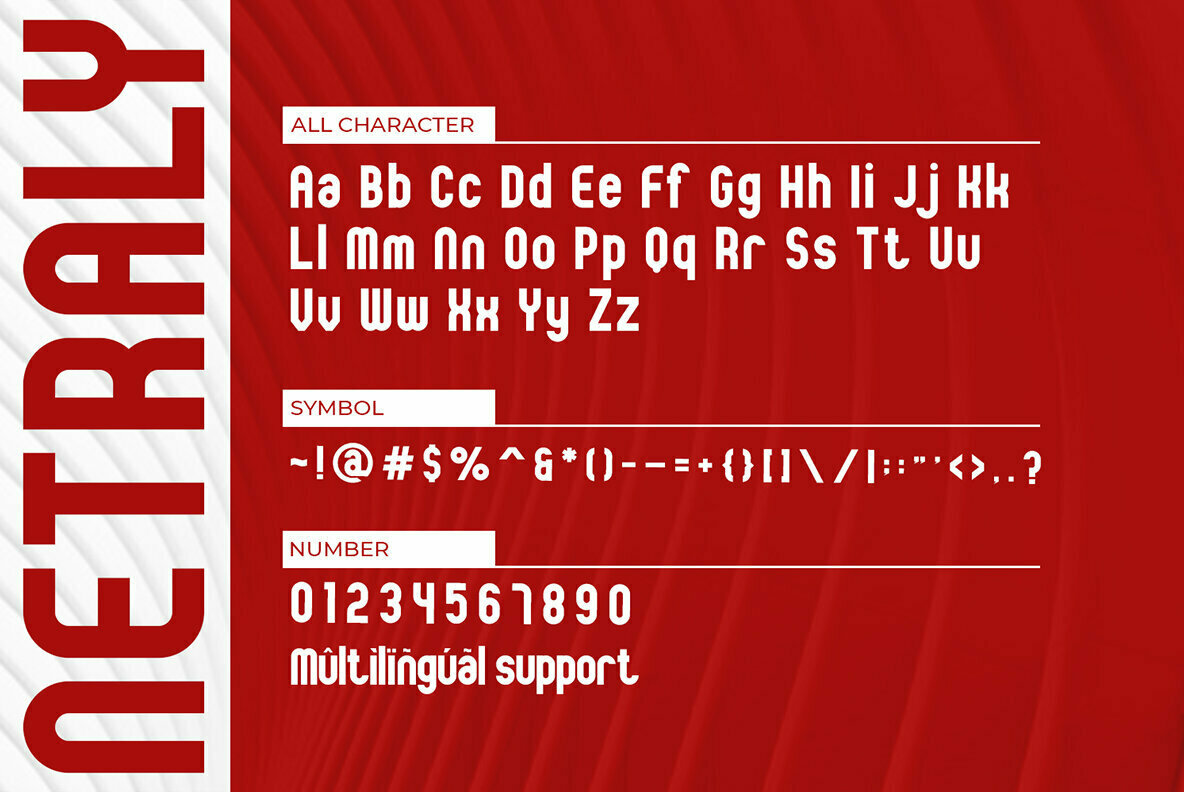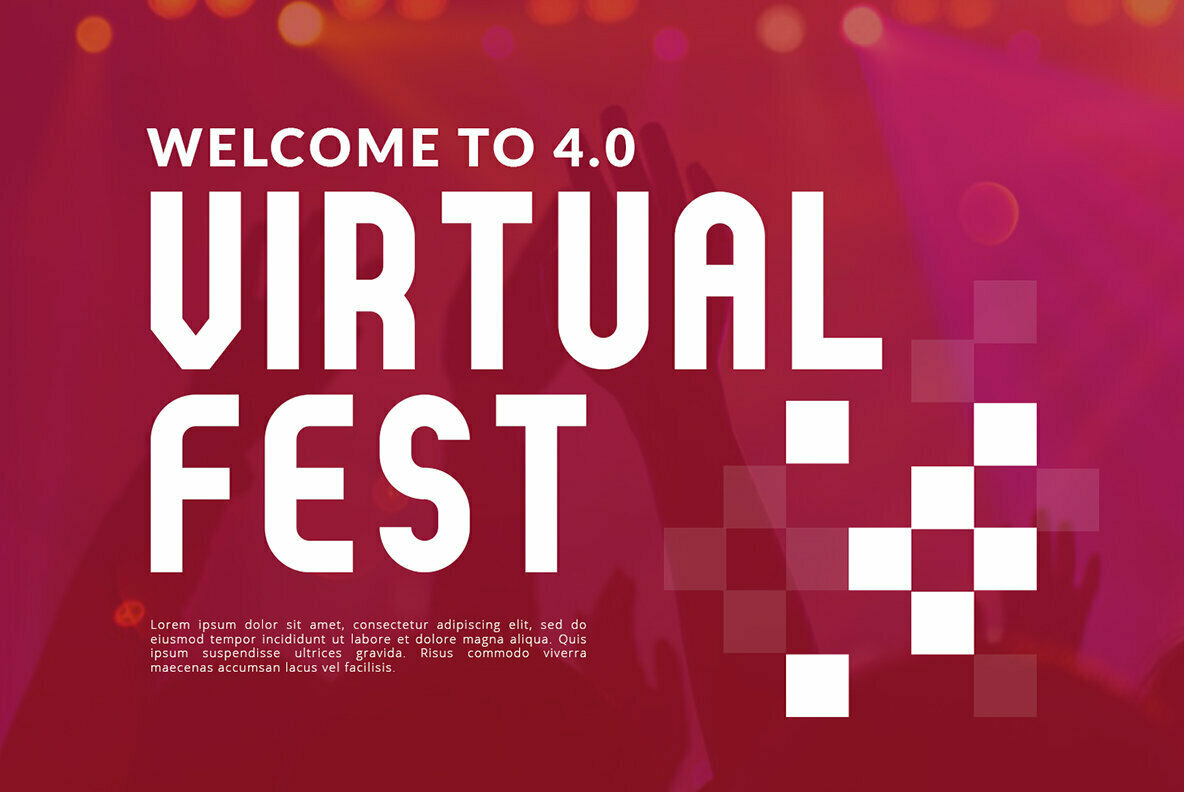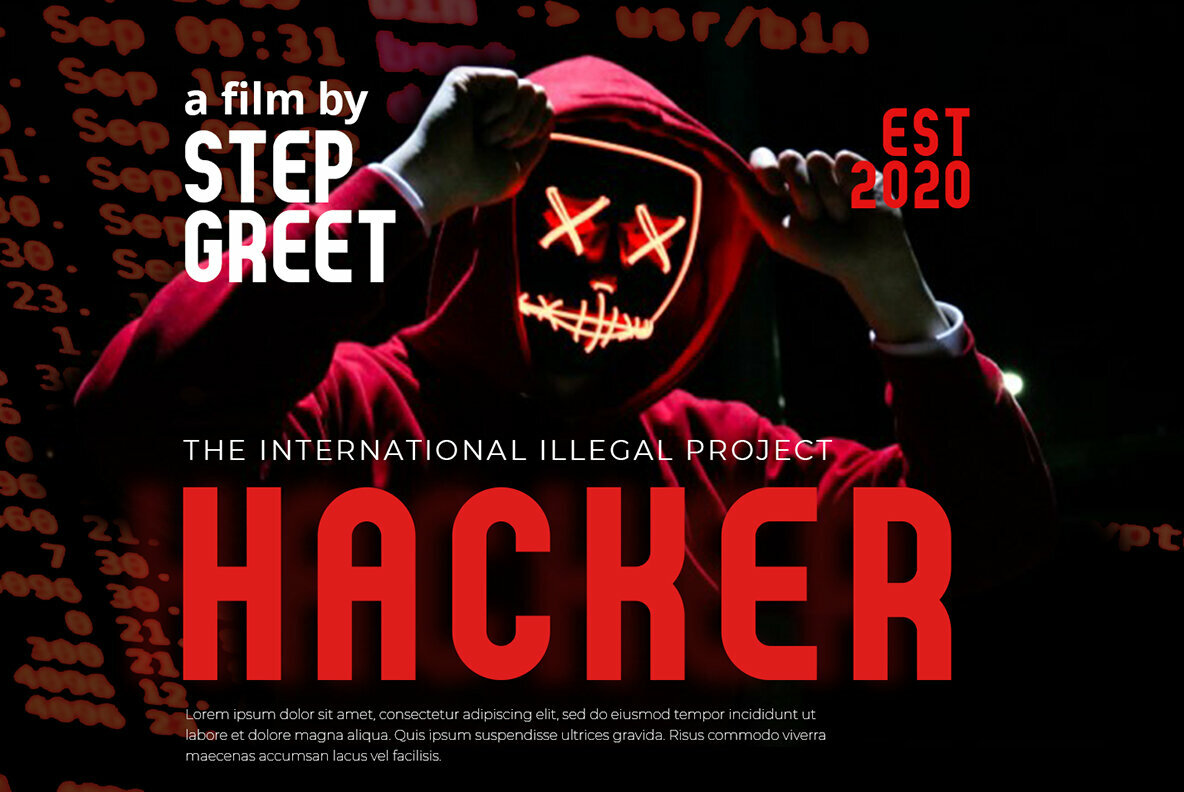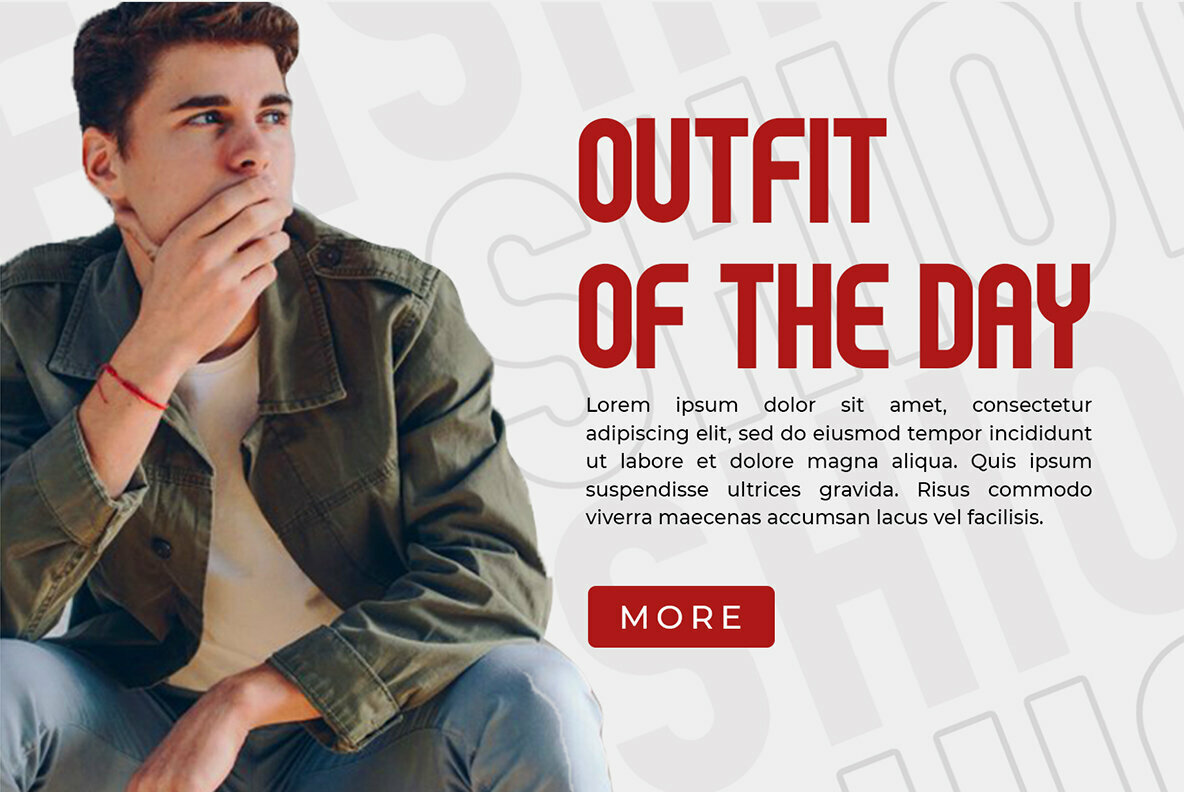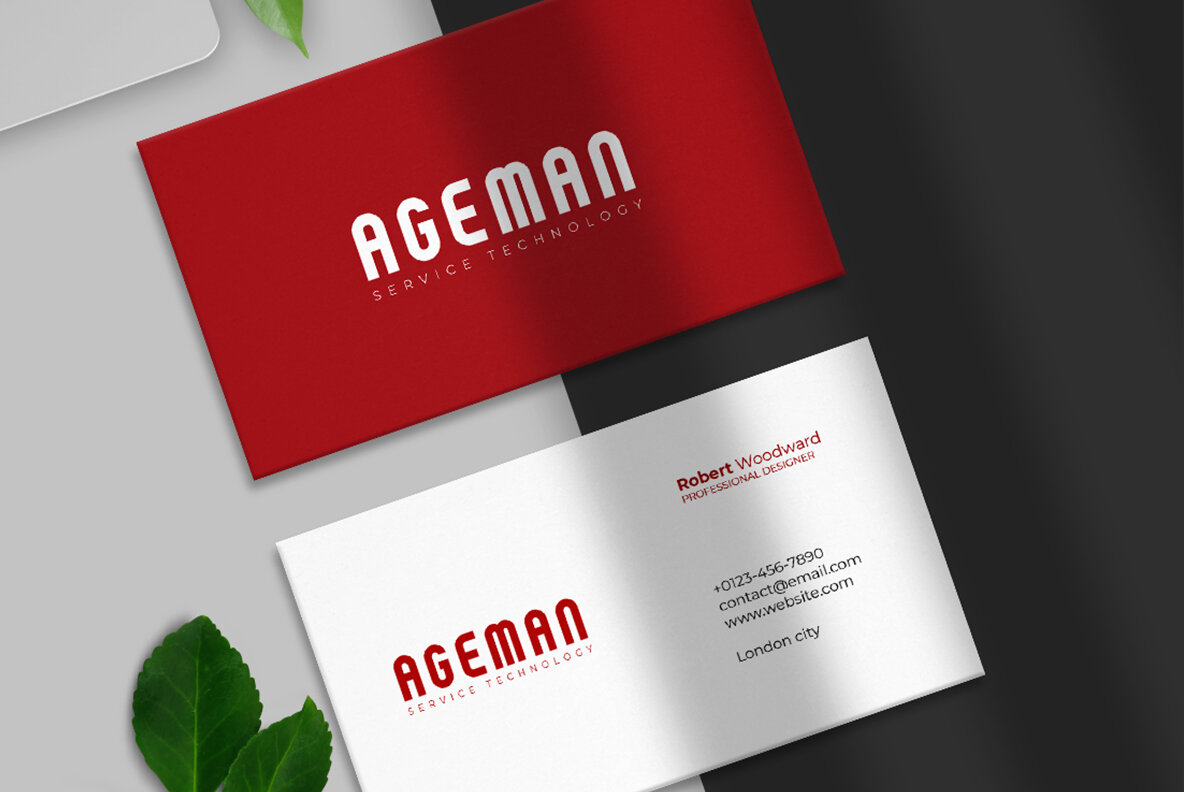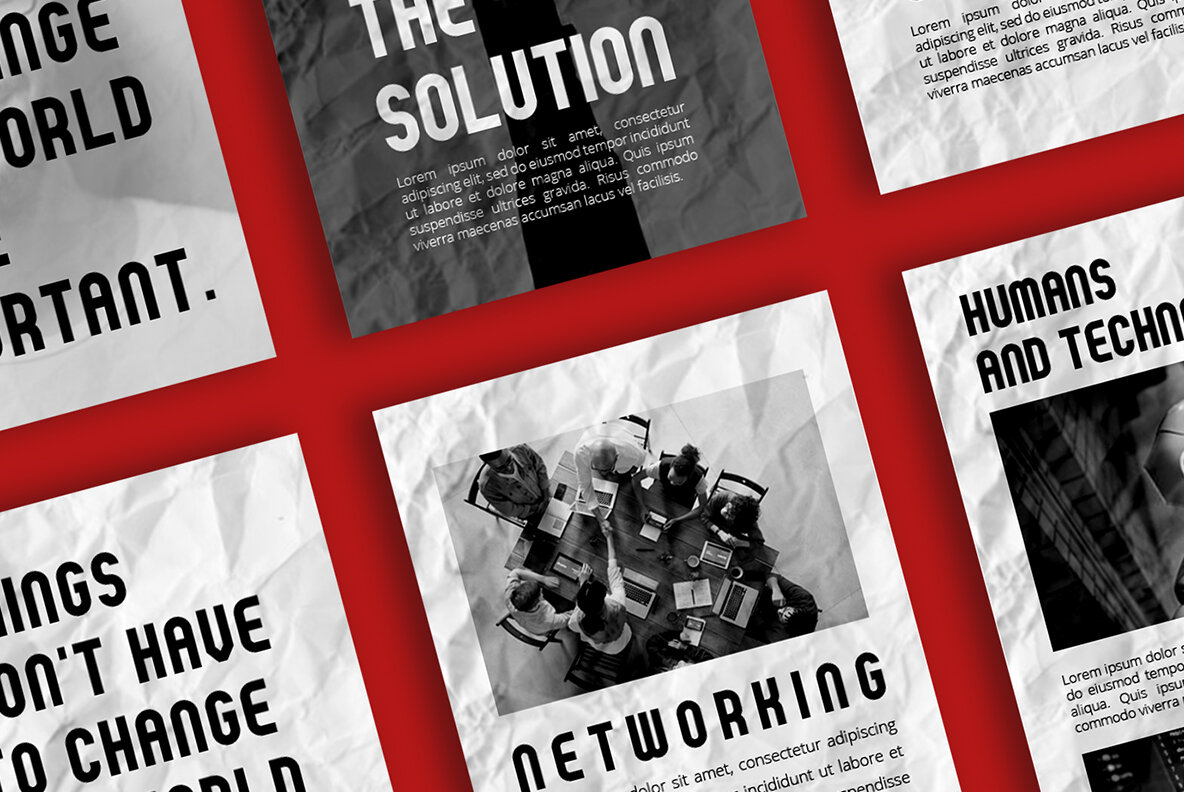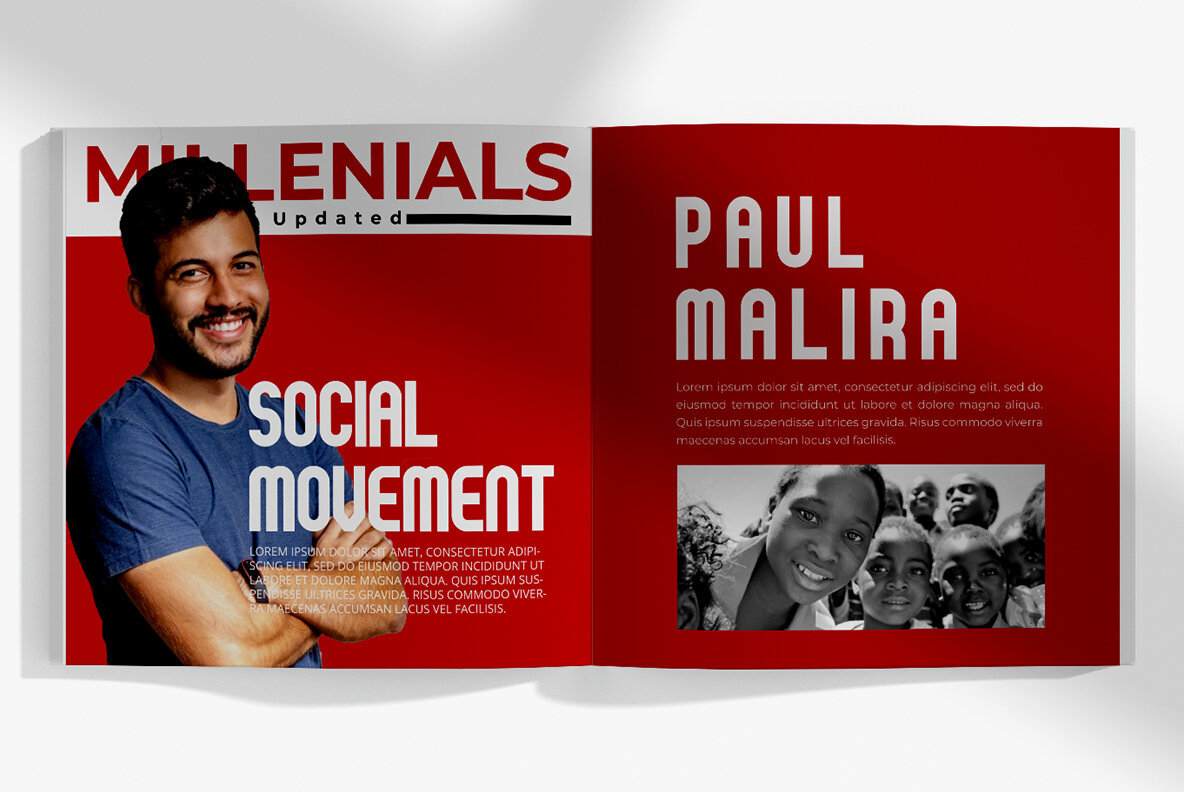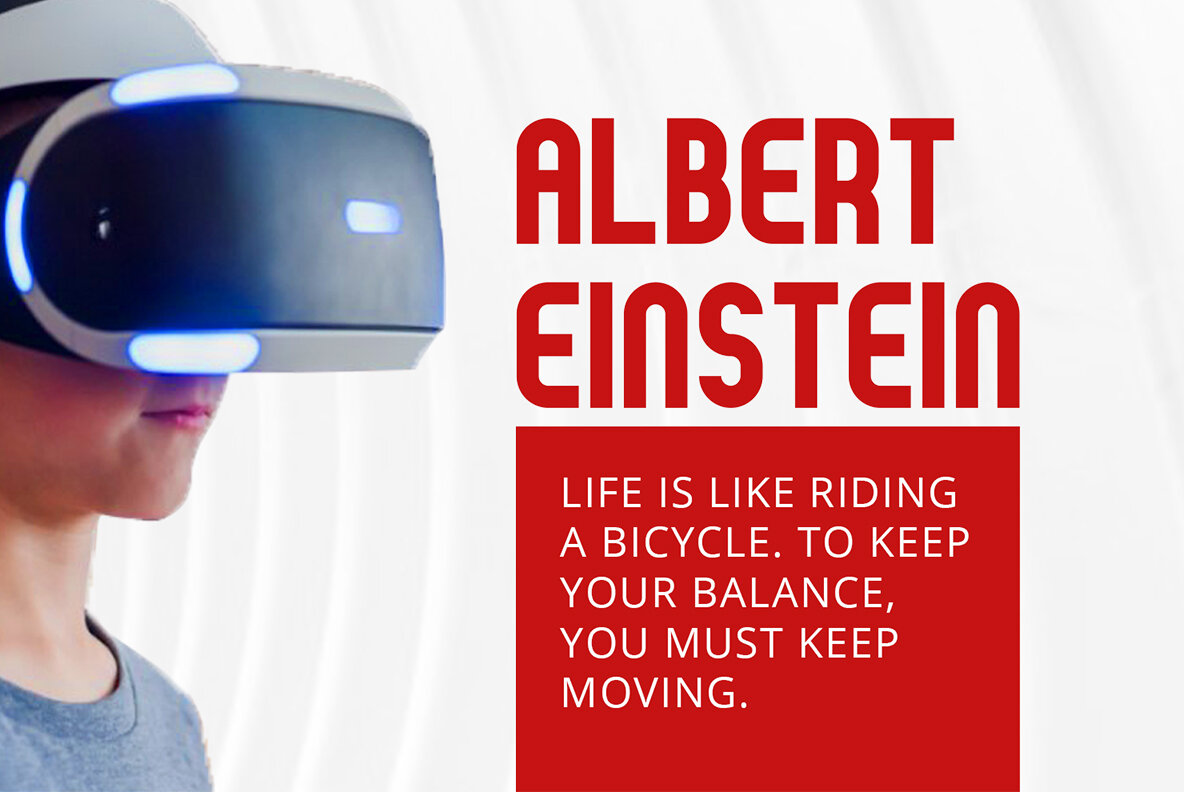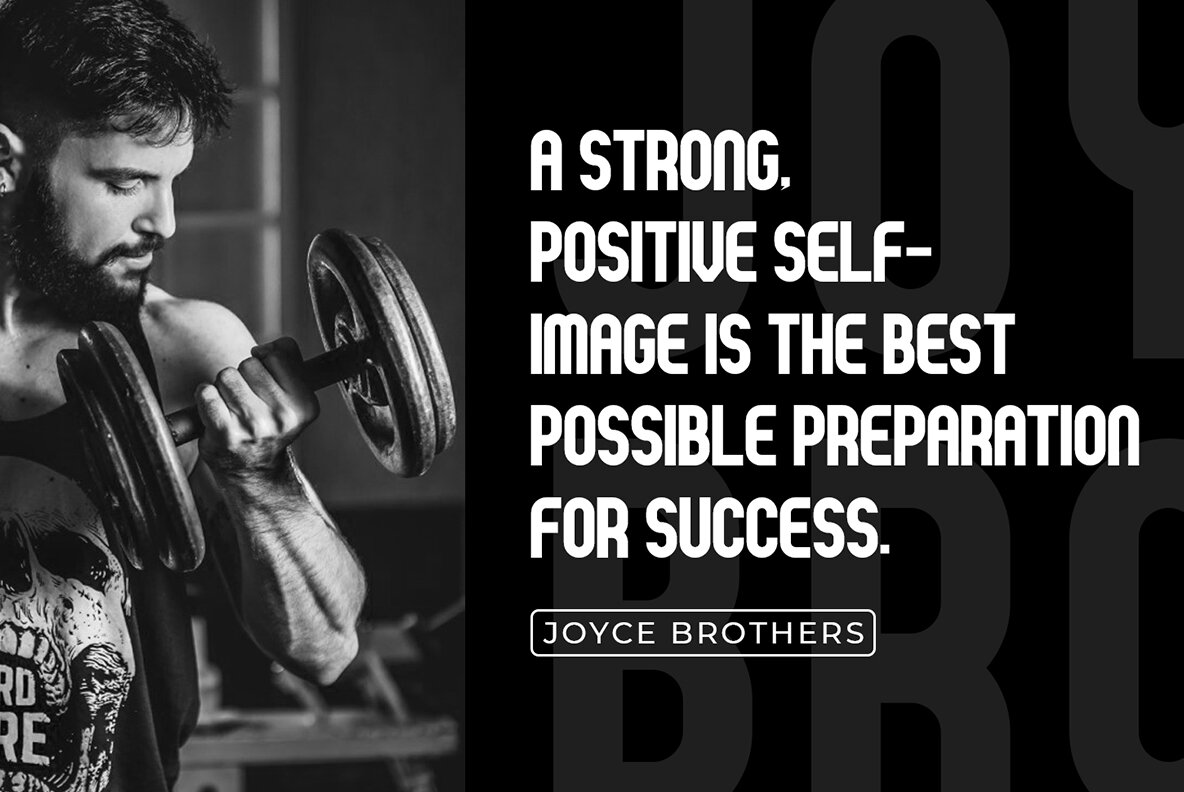
Netraly Font
Netraly
Netraly stands out as a contemporary sans serif, crafted with precision for professional branding projects. This font seamlessly integrates into any design, ideally suited for printing and branding applications. Each letter carries a distinct and appealing aesthetic, setting a sophisticated tone across diverse creative endeavors.Netraly: Sophisticated Sans Serif for Modern Design